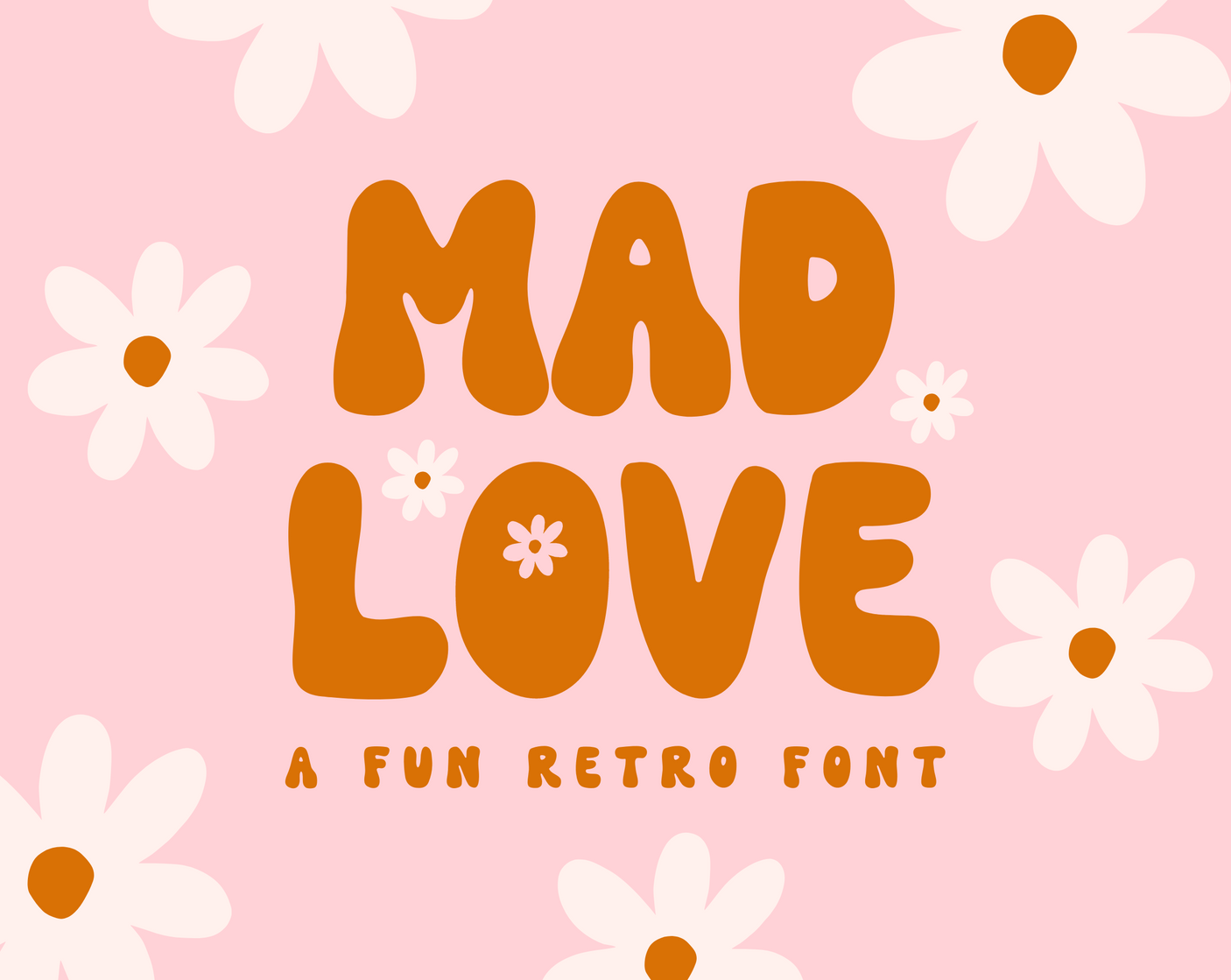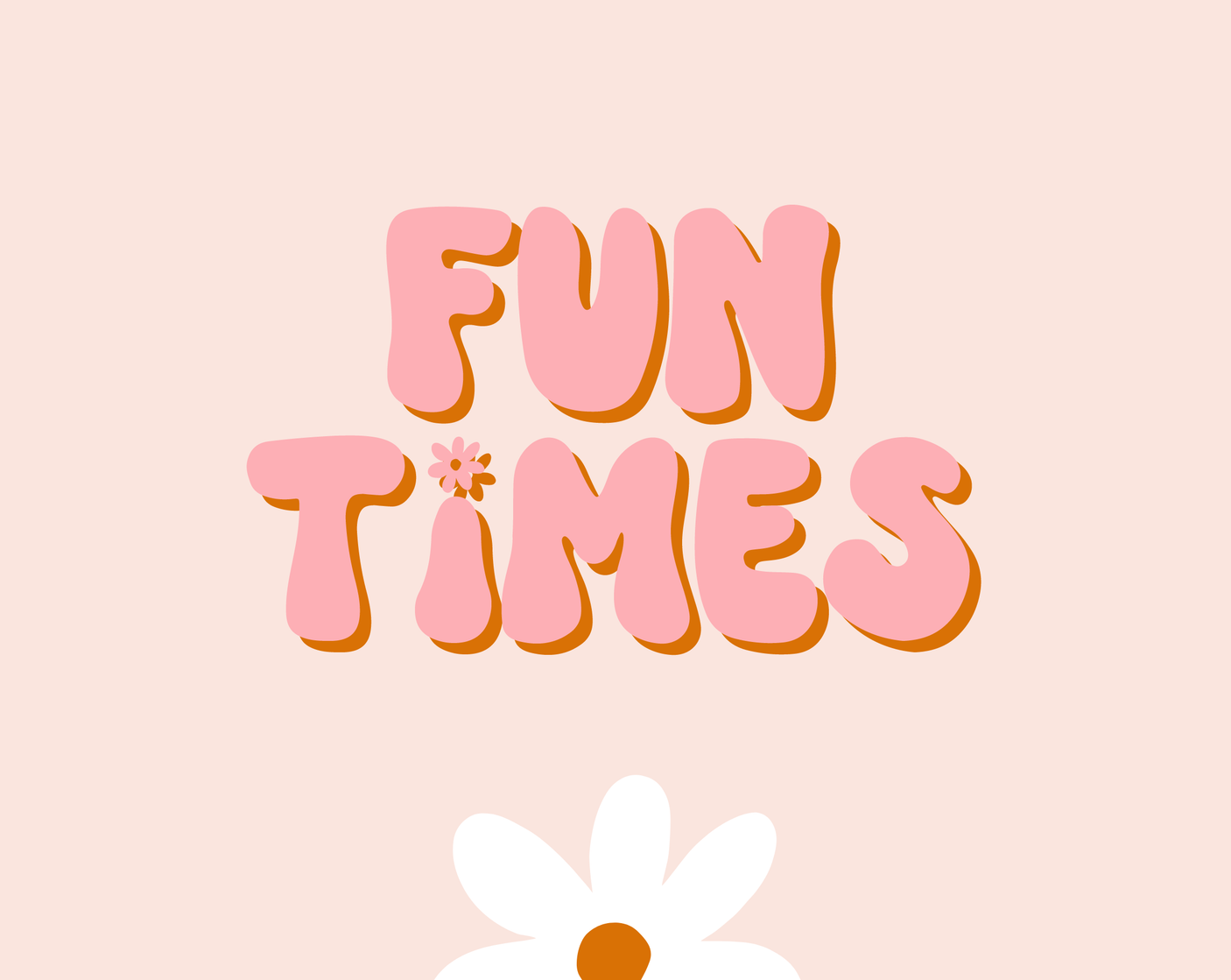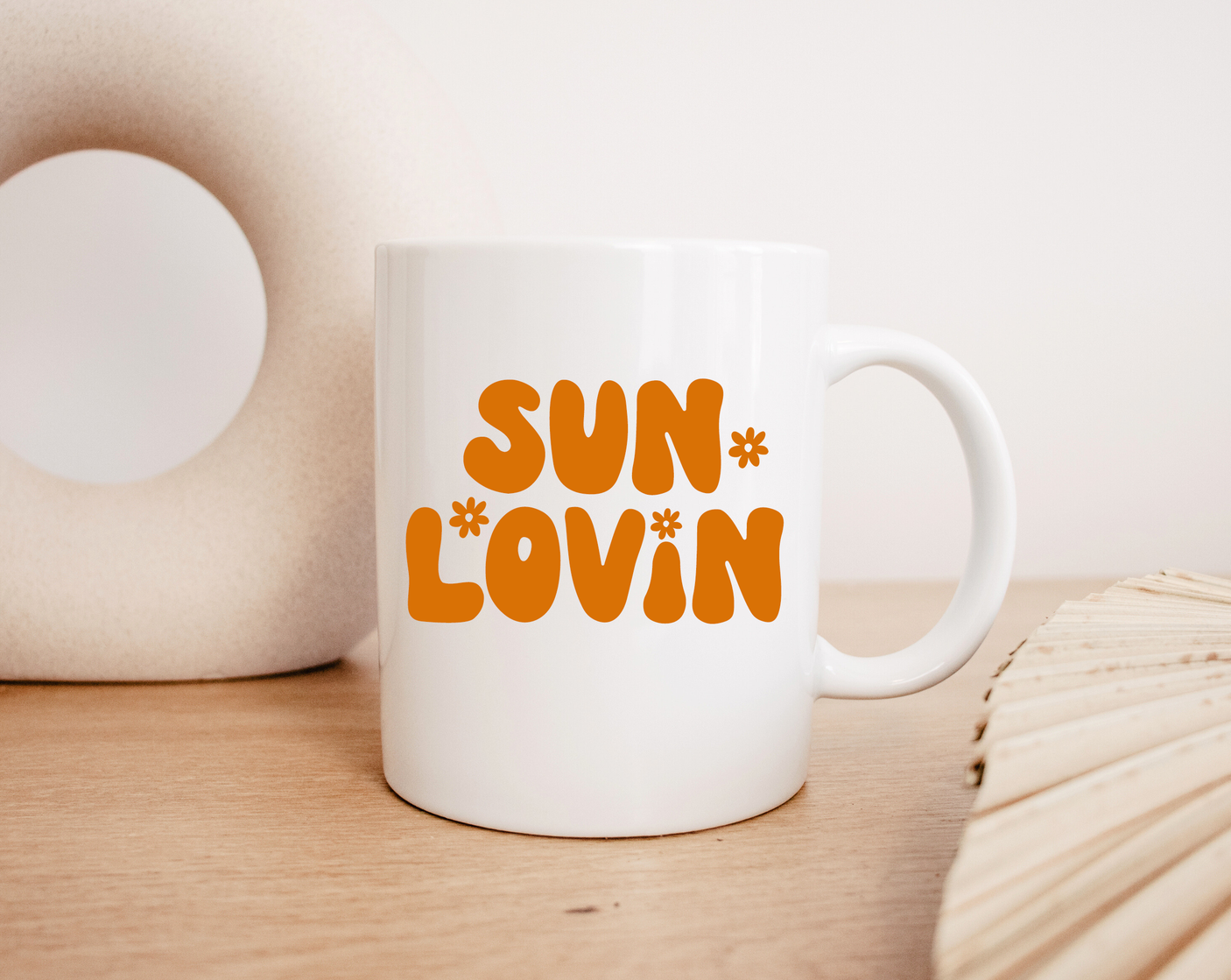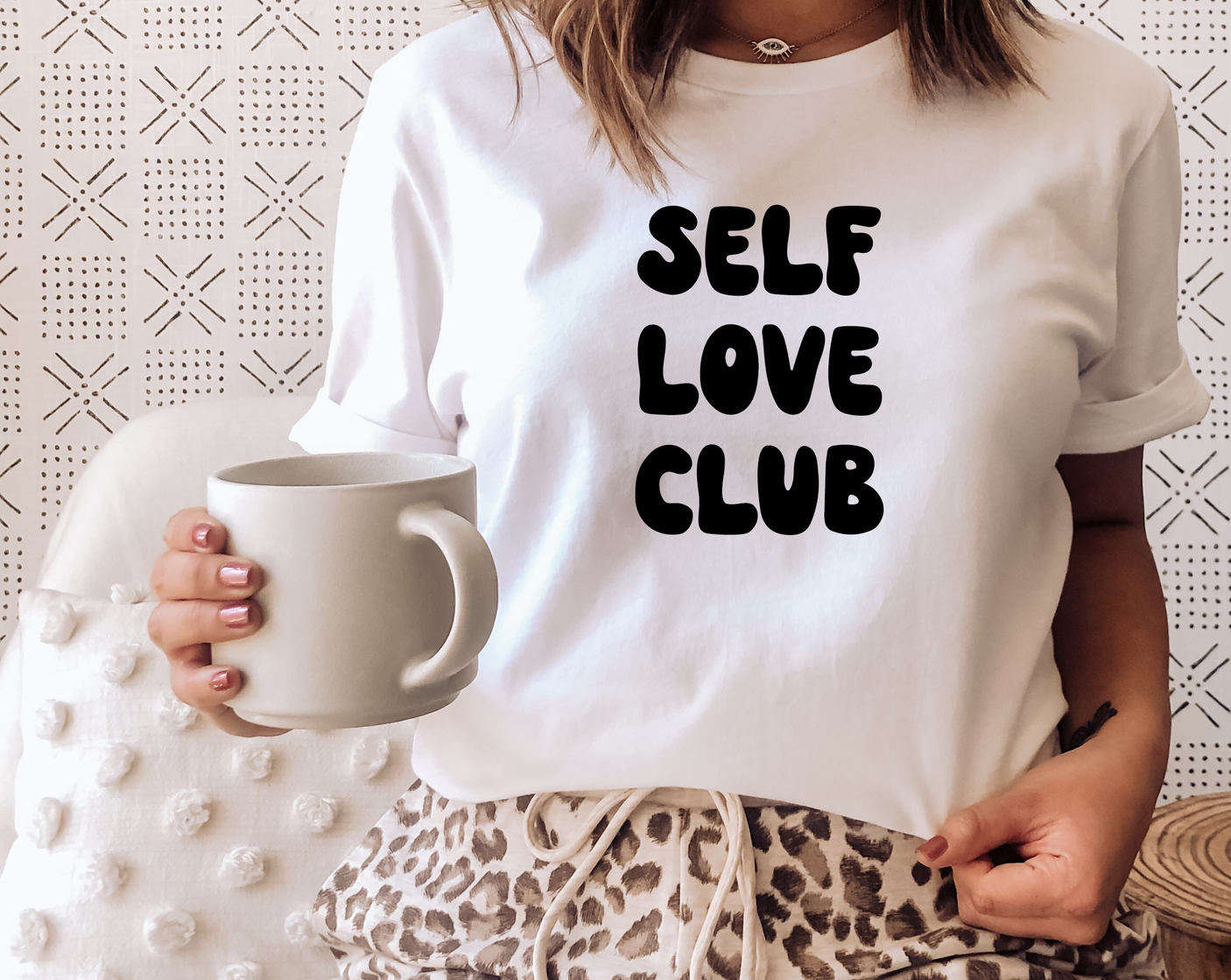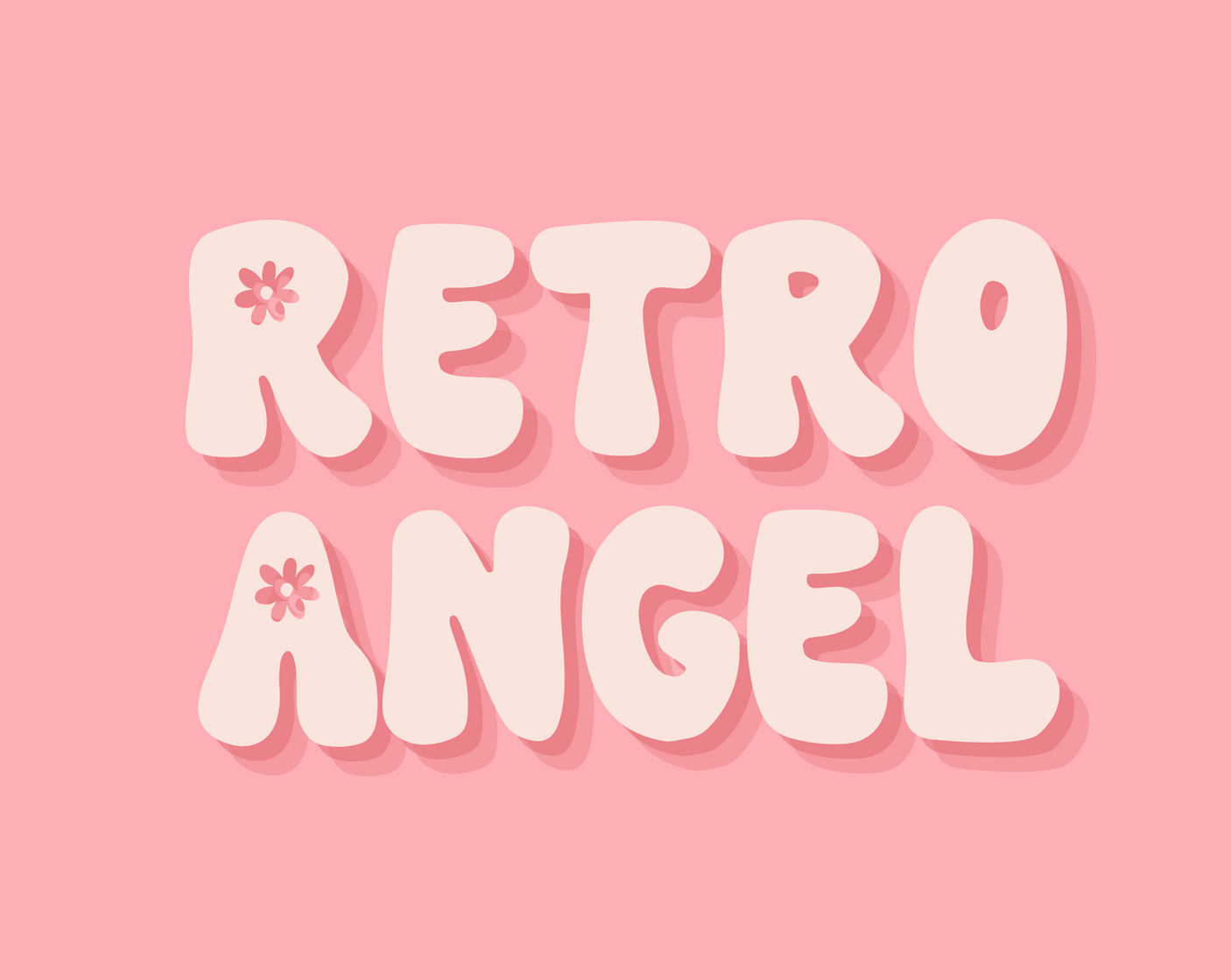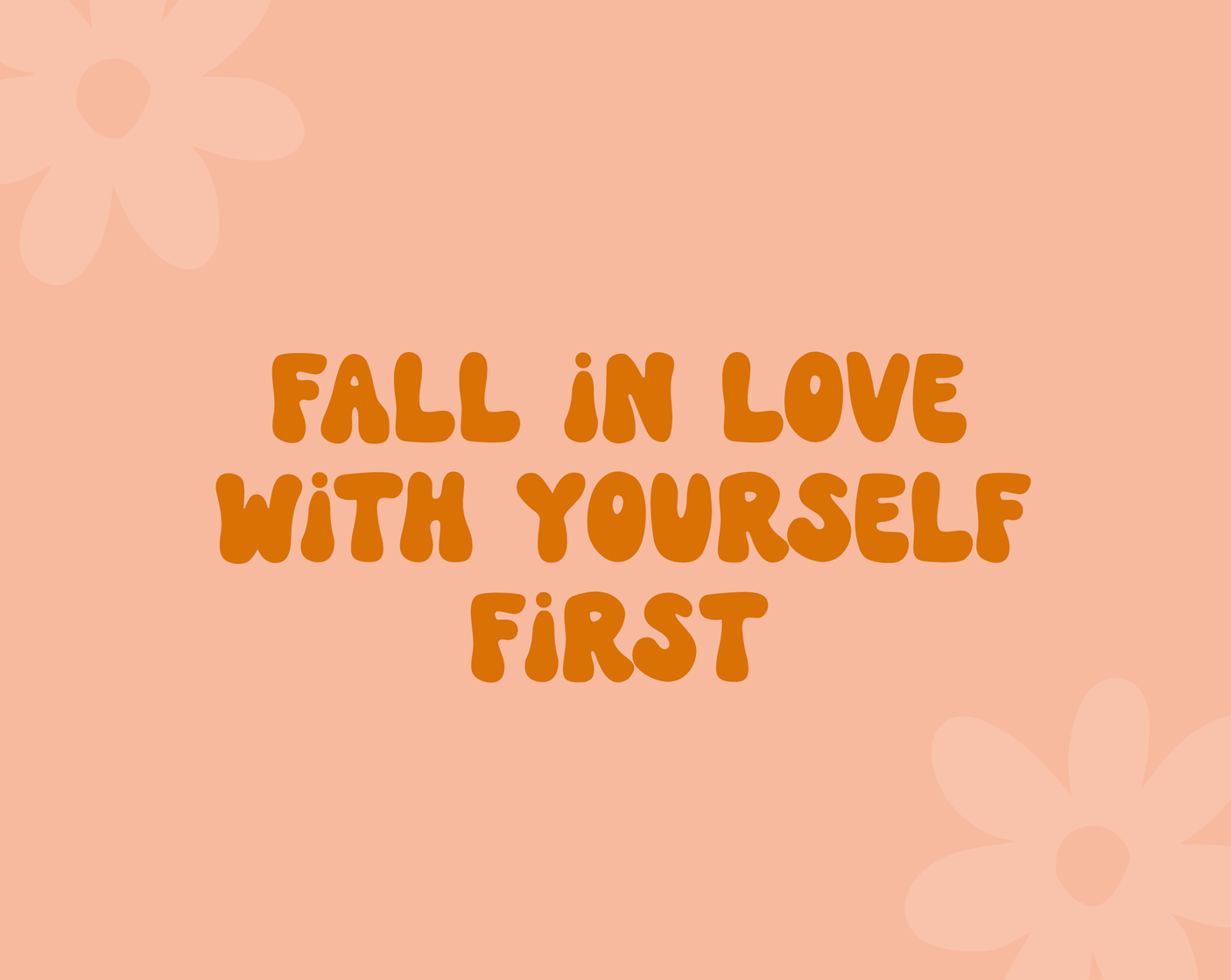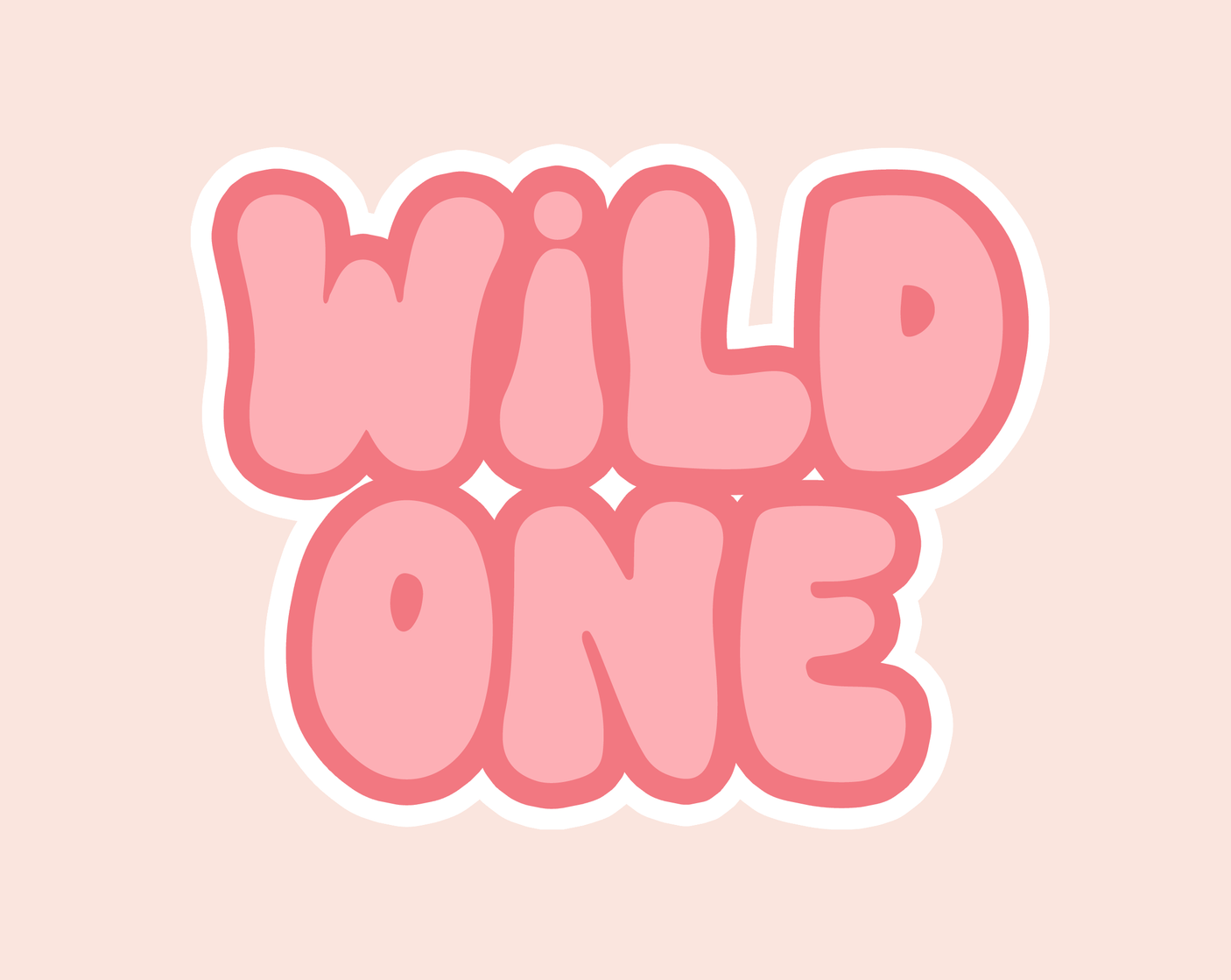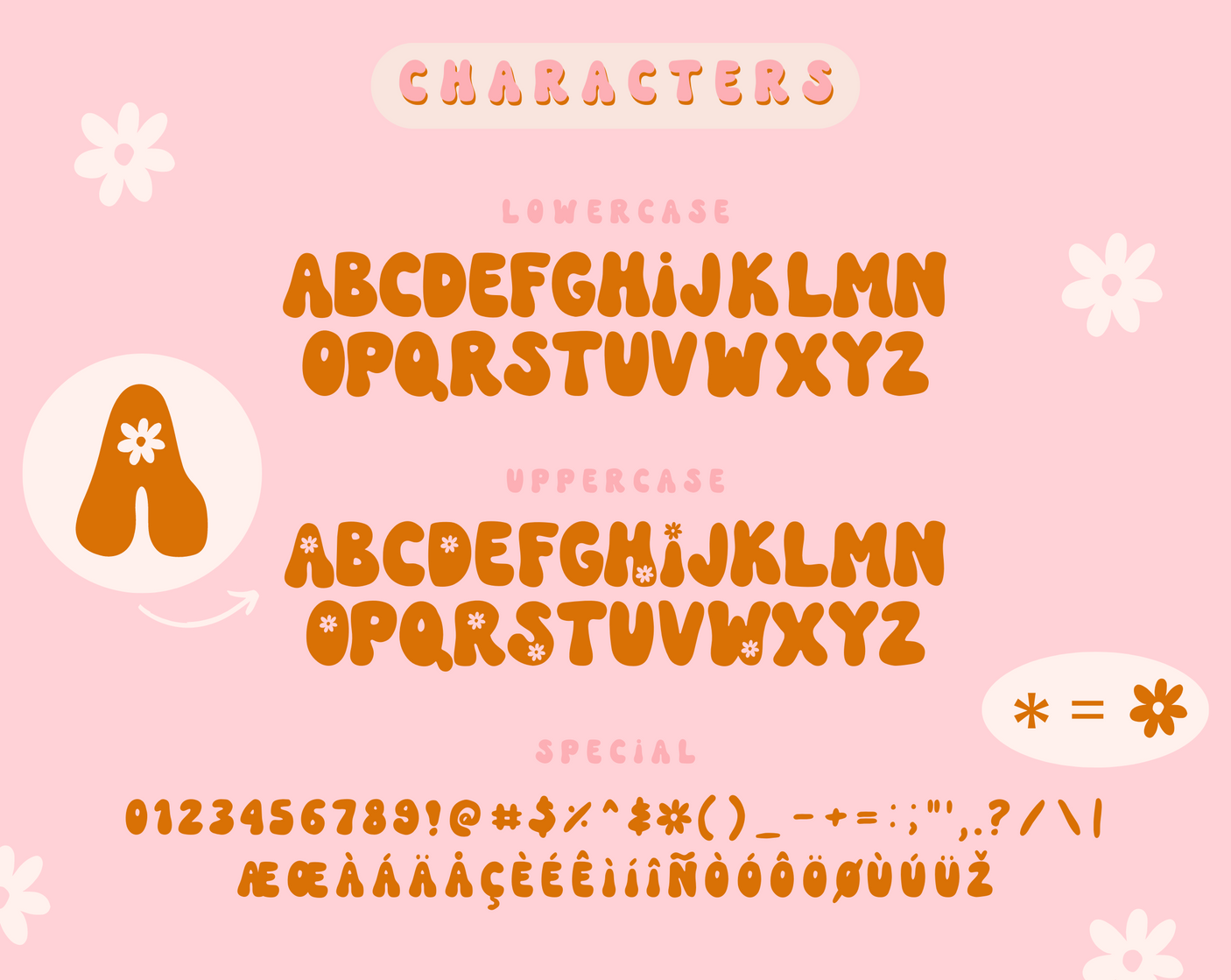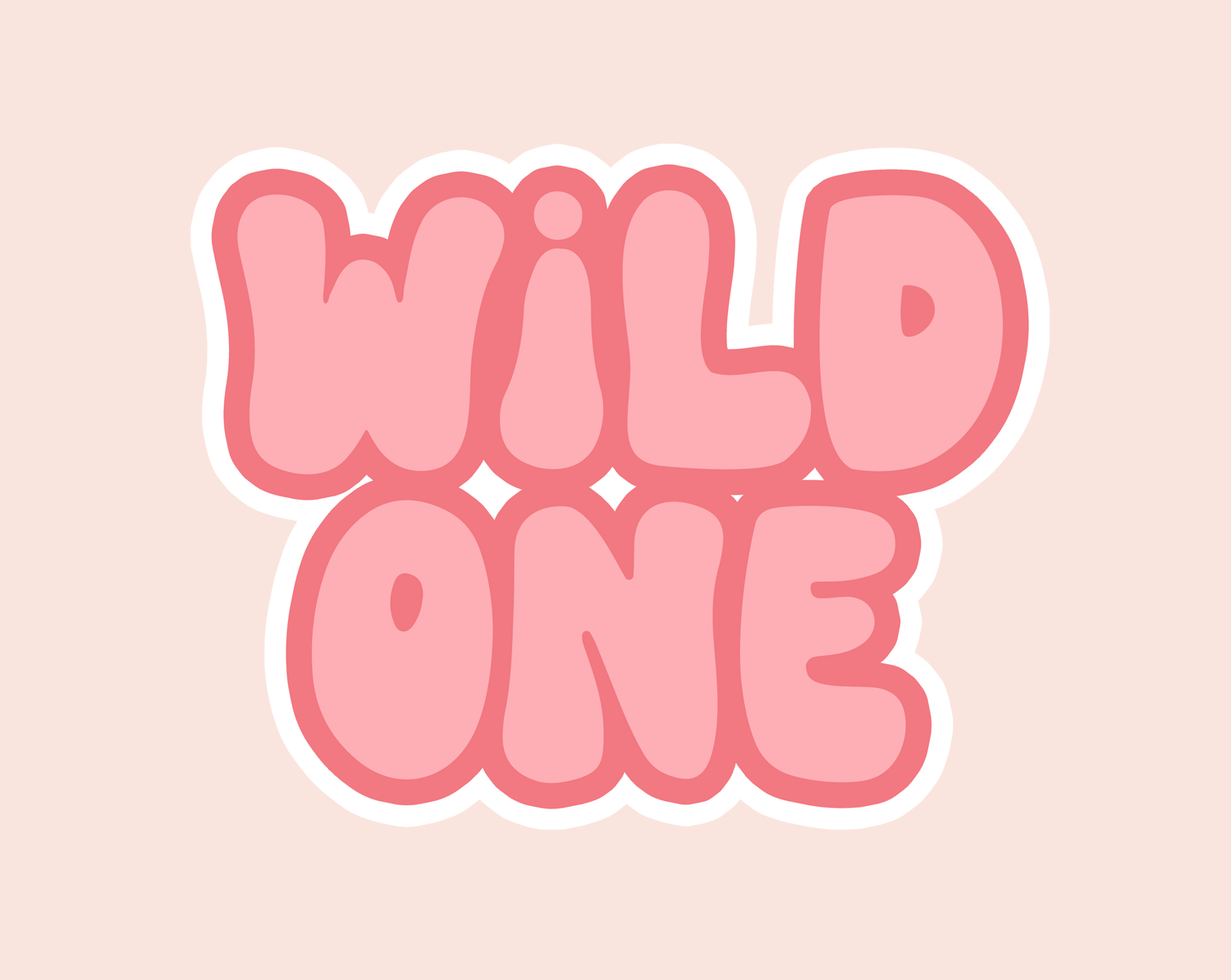
Mad Love Font
Retro font called Mad Love to add to your groovy fonts collection. This 70s hippie font in all capitals can be used as a font for Cricut, Procreate, Canva Pro and more. It’s a bubble flower font in all-caps to create SVGs, Cricut work and fun designs.
The Mad Love font includes a selection of characters with cute flowers to add that hippie retro effect to your project. It’s a retro bubble font with all the good vibes and would look great on mugs, hoodies, sweaters, t-shirts and more.